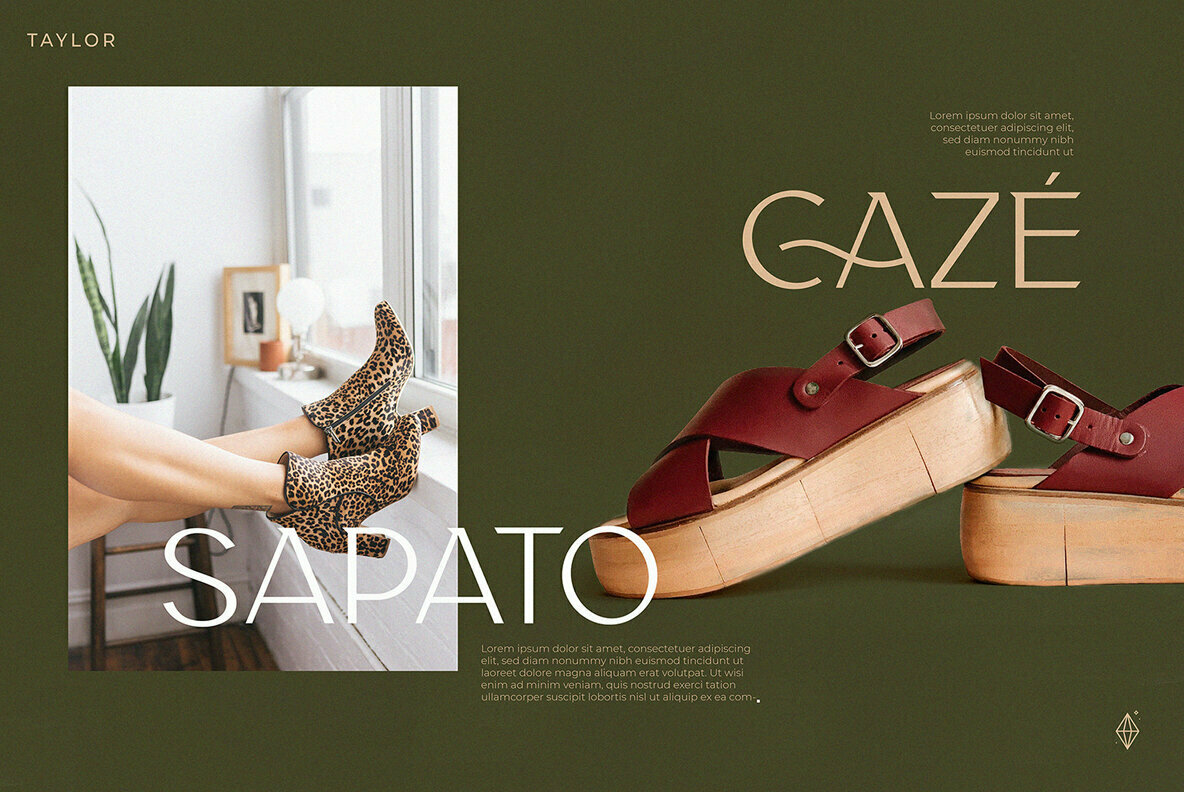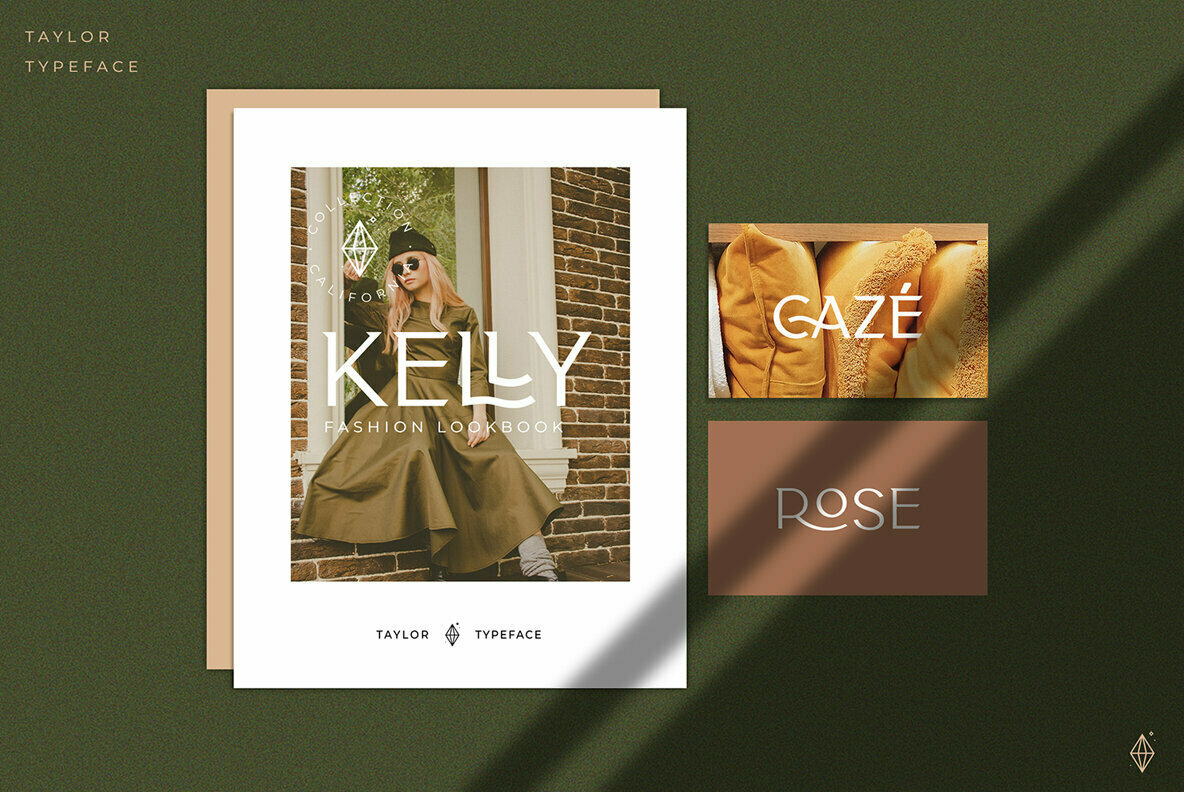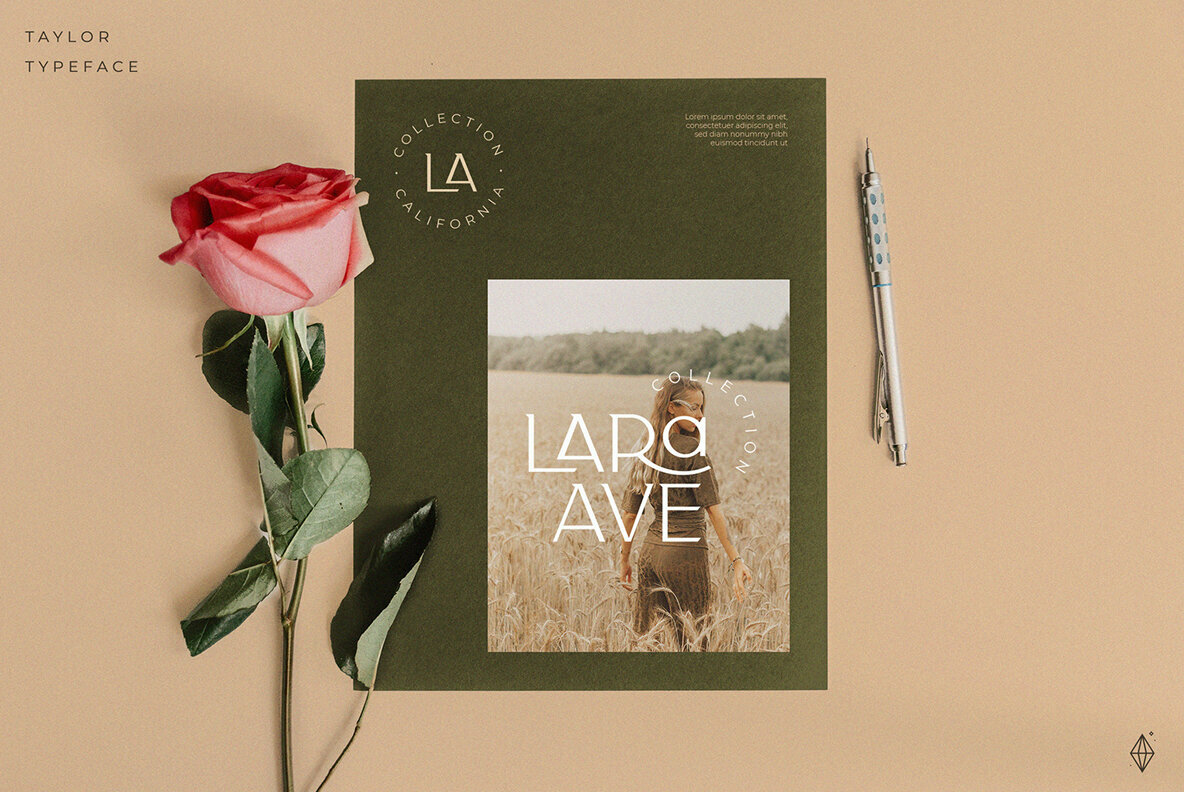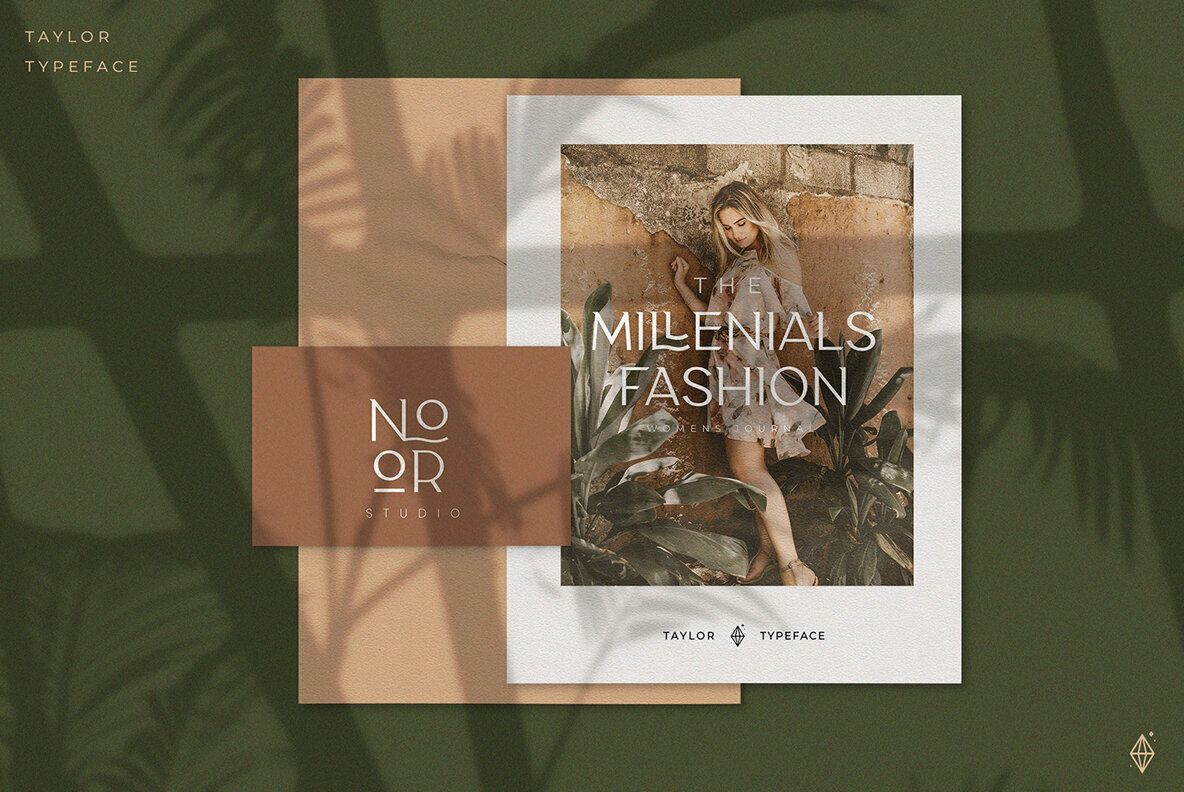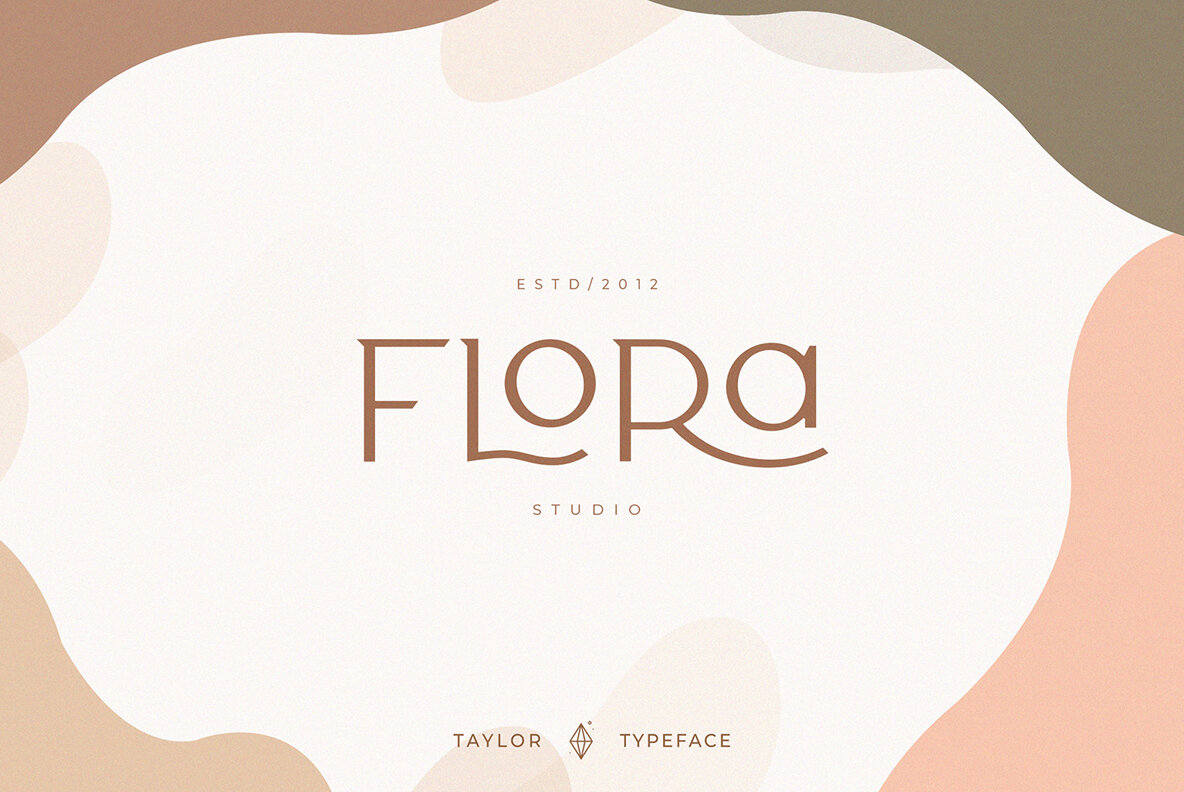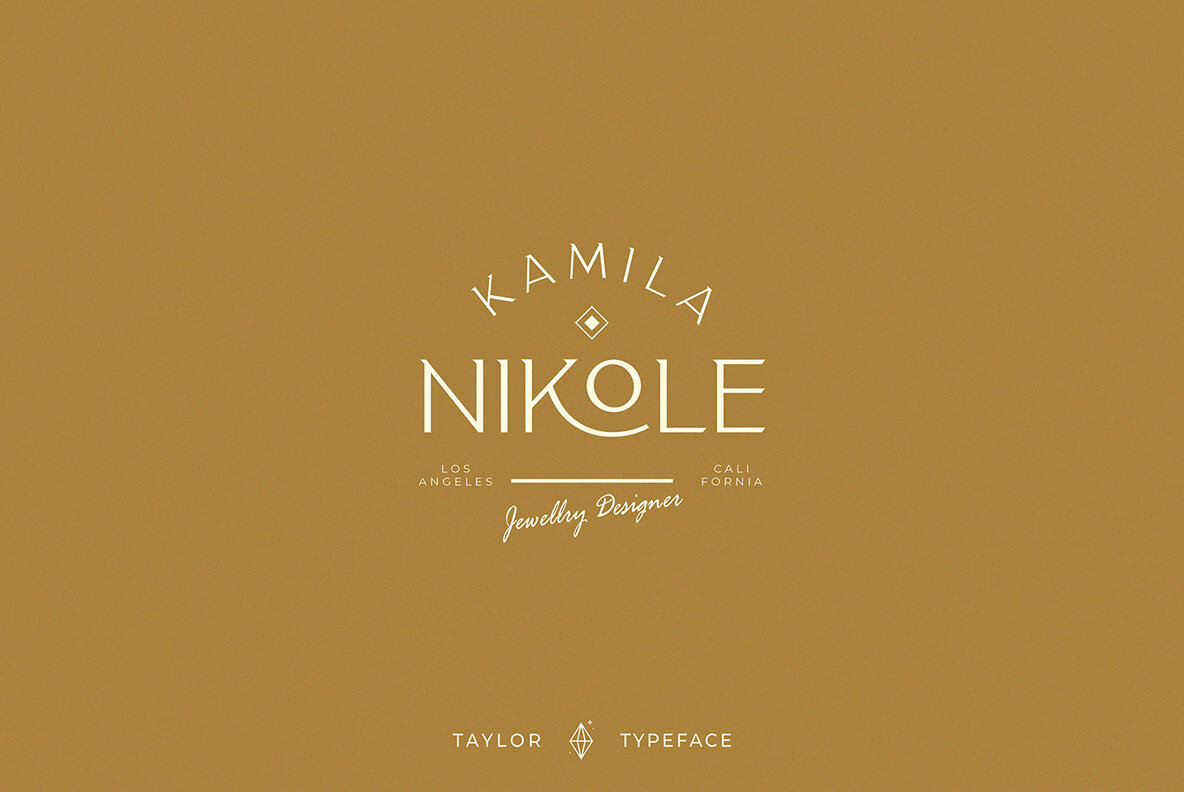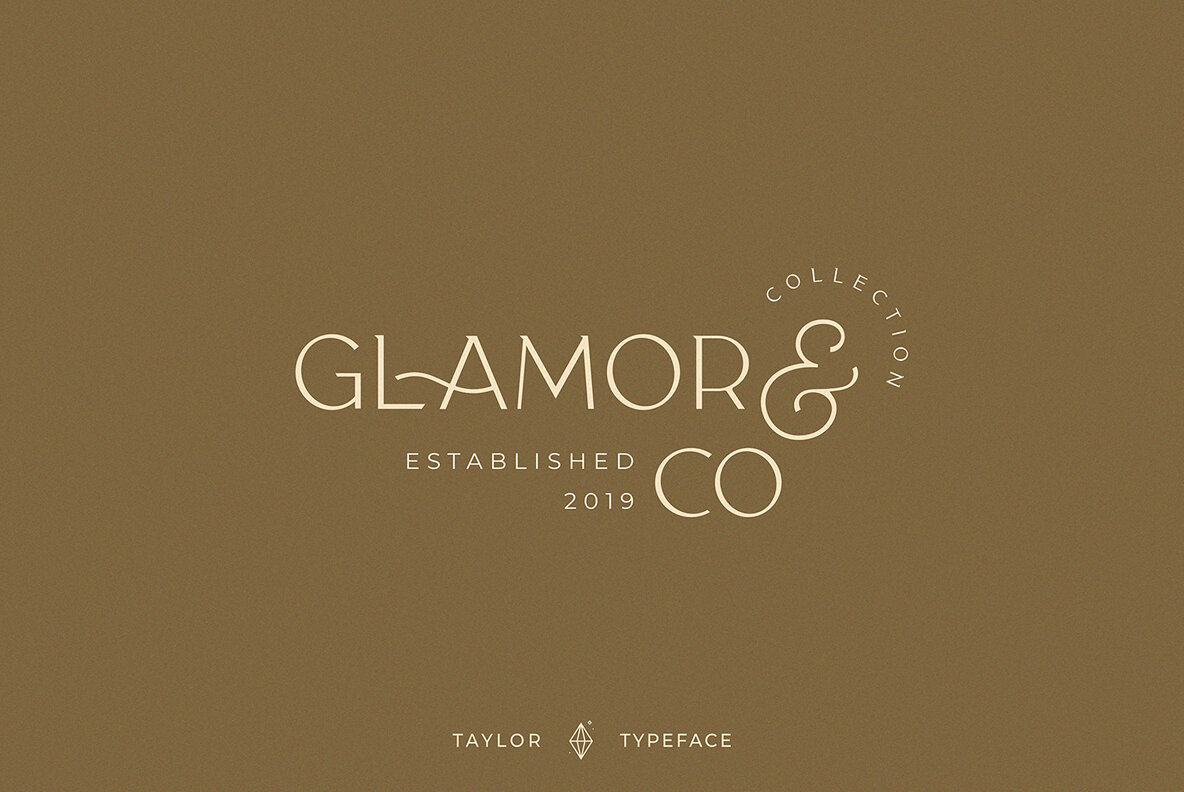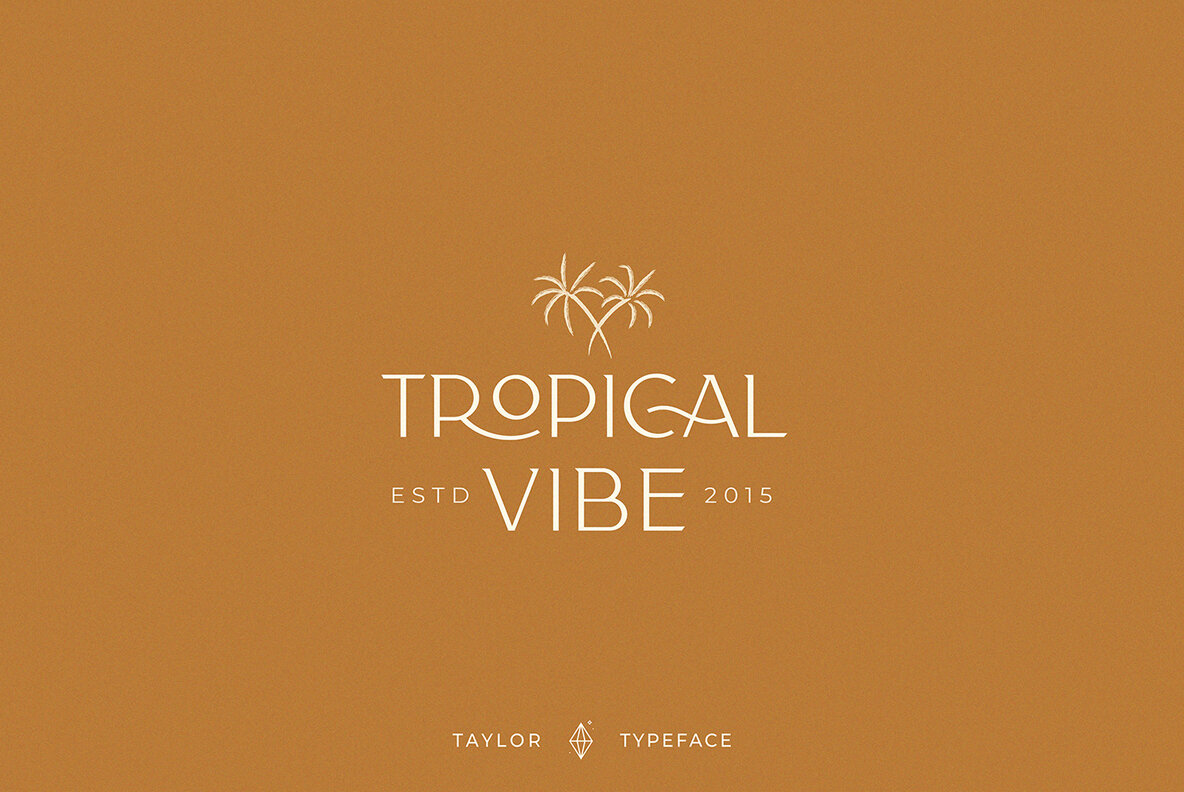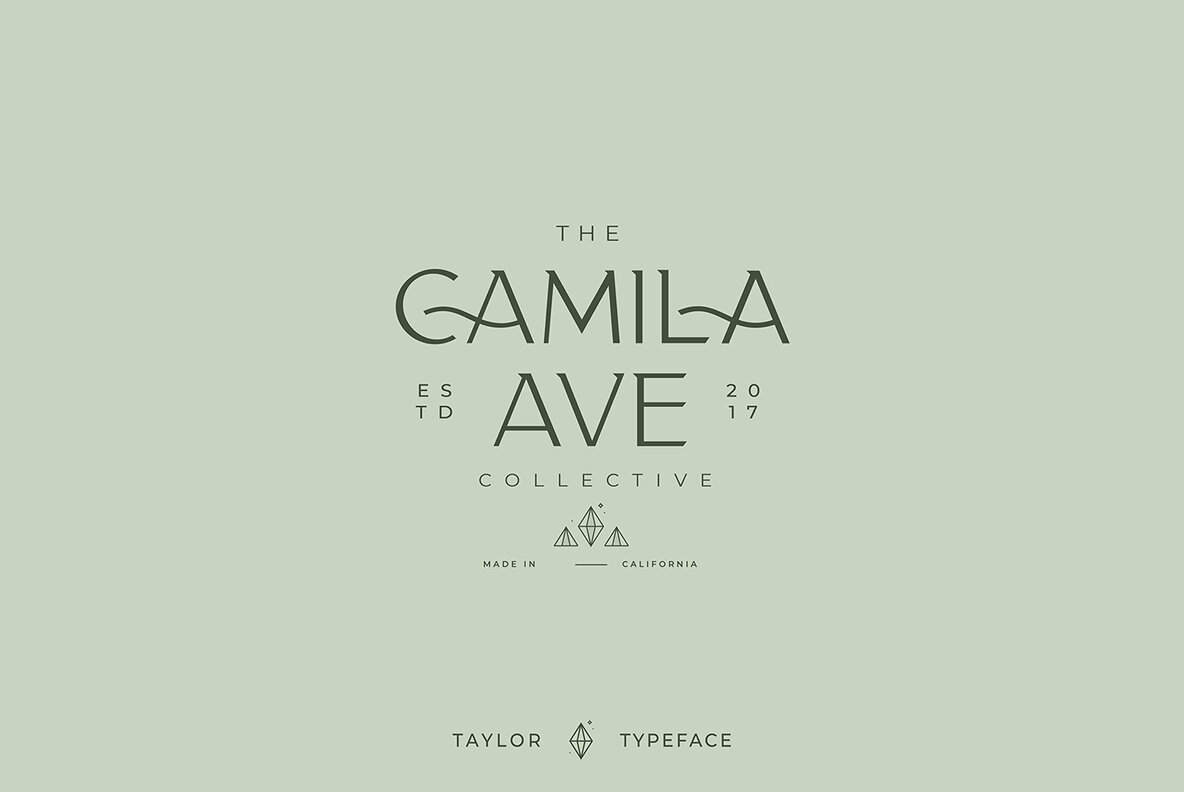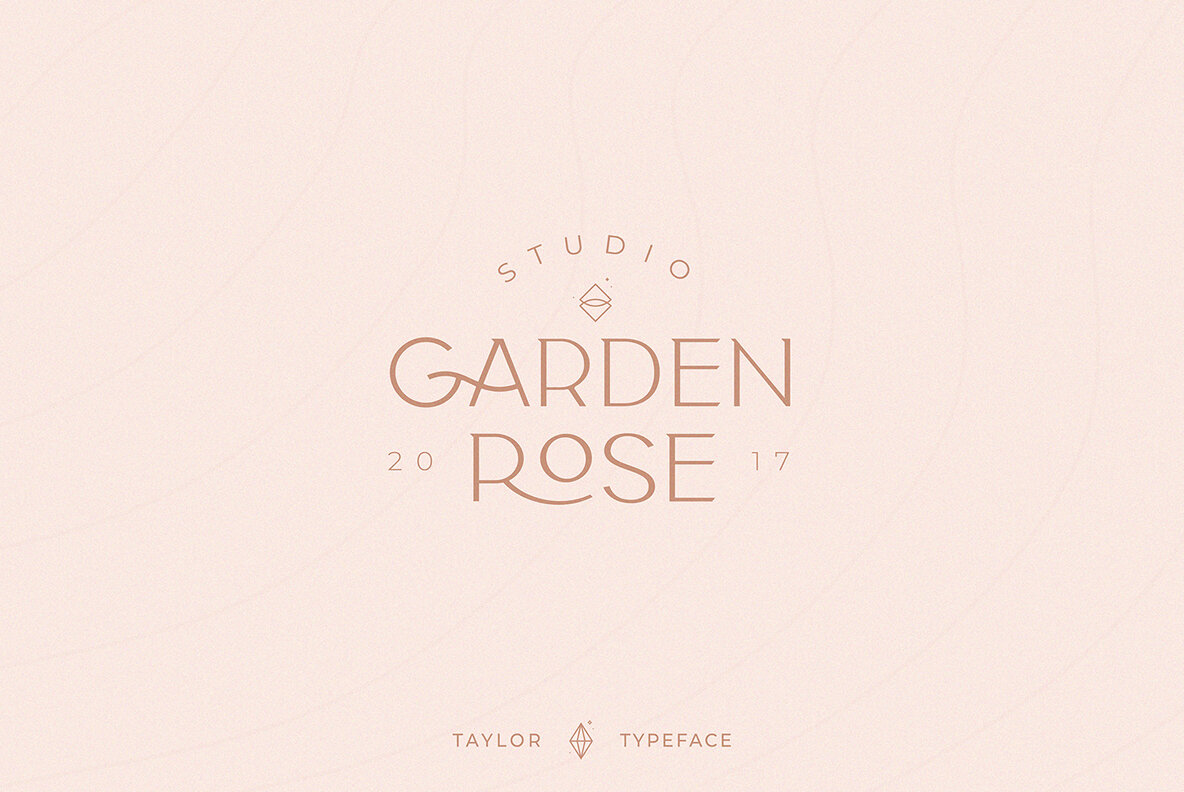
Taylor Typeface Font
Taylor Typeface is a striking modern sans serif font known for its simplicity and elegance. Its bold and clean design is perfect for a range of applications including logos, headlines, posters, and packaging. The typeface offers three different weights, enhancing your ability to design with flexibility and uniqueness. To explore its stylistic alternates, access the glyphs panel. In Adobe Photoshop, navigate to Window, then Glyphs. In Adobe Illustrator, go to Type, then Glyphs.Taylor Typeface: Modern Sans Serif with Versatile Options